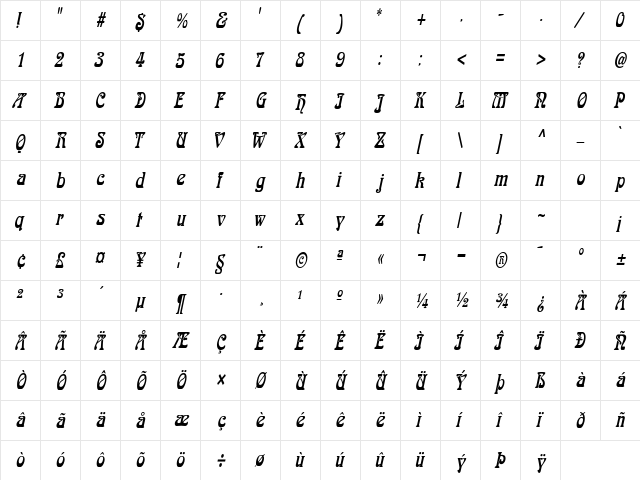
LaliqueCondensed Italic
Design Context for LaliqueCondensed Typeface
LaliqueCondensed offers clean, dependable letterforms without strong stylistic allegiance, making it a practical choice for designers who need flexibility. The slanted form adds forward momentum and visual energy. Its narrow stance lets it pack a punch even in space-constrained designs.
Pro Tip: Use LaliqueCondensed for emphasis, pull quotes, and subheadings where its slanted energy can add rhythm to the layout.